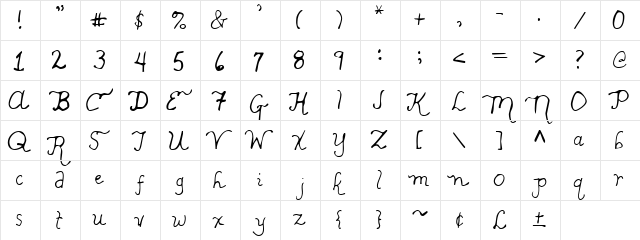
2Peas Scripty Scoreboard Regular
Design Context for 2Peas Scripty Scoreboard Typeface
2Peas Scripty Scoreboard brings a calligraphic fluidity to the page — its connecting strokes and expressive curves give it an unmistakably human quality.
Font Pairing: Combine 2Peas Scripty Scoreboard with a simple geometric sans for maximum contrast — the tension between flowing curves and clean structure is a classic typographic pairing.
Pro Tip: Pair 2Peas Scripty Scoreboard with a clean sans-serif for supporting text. The contrast between fluid script and geometric structure creates an elegant typographic hierarchy.